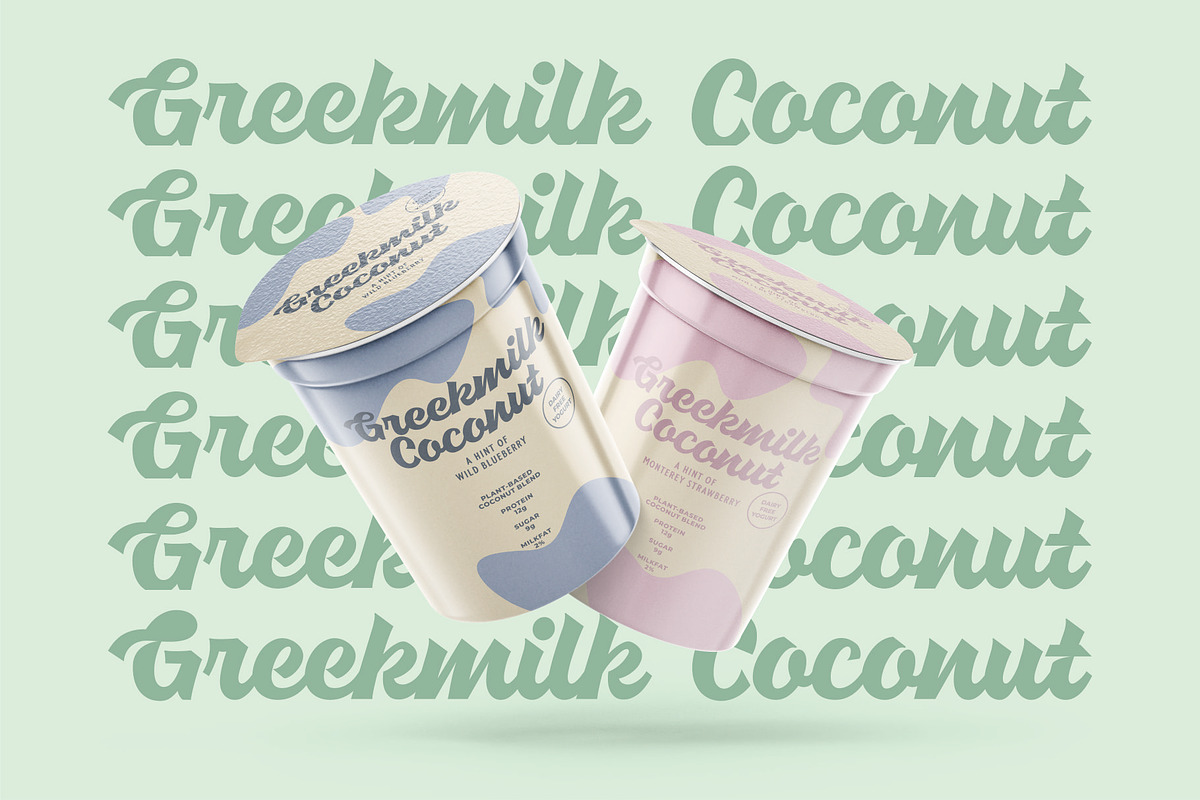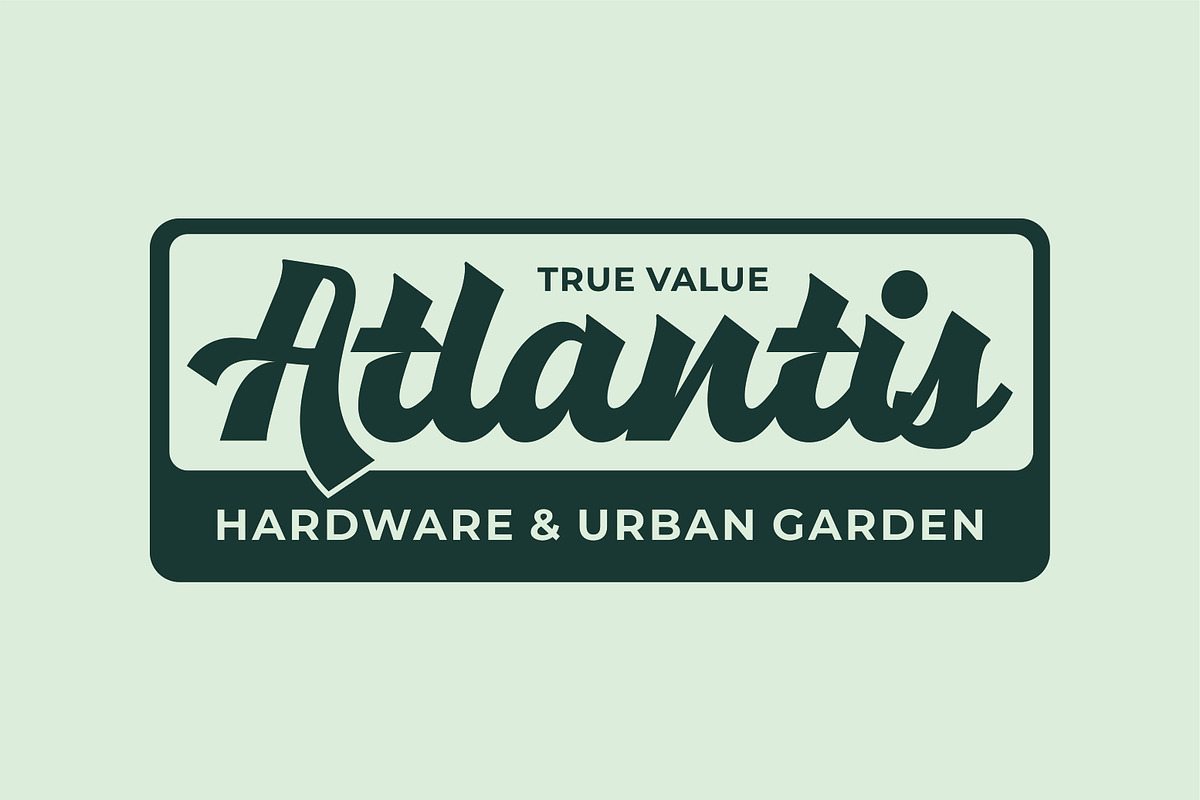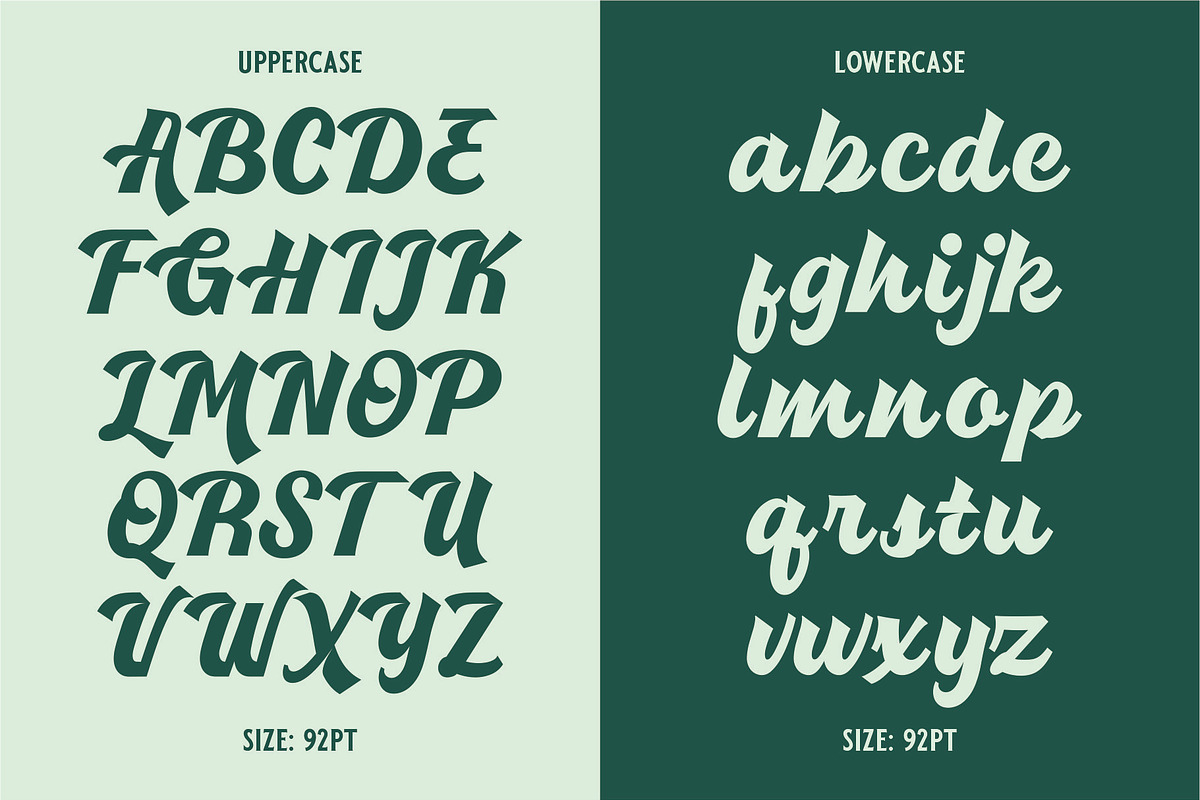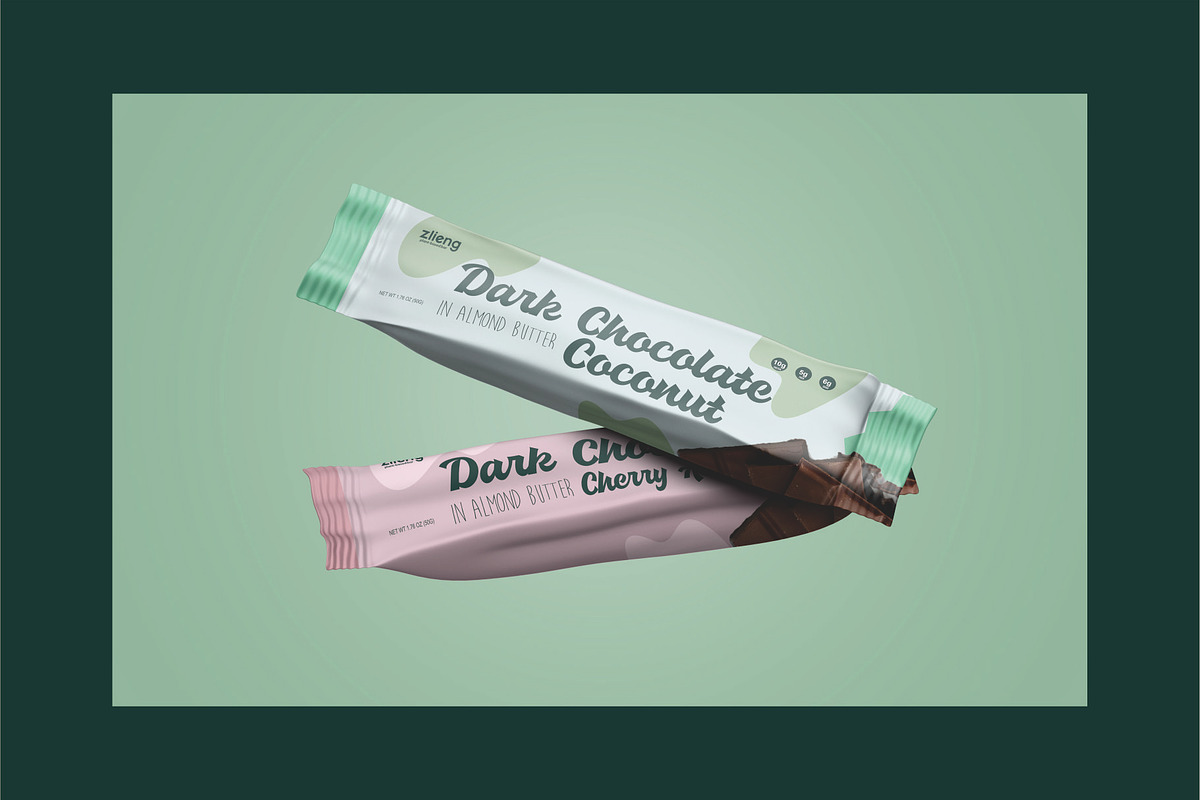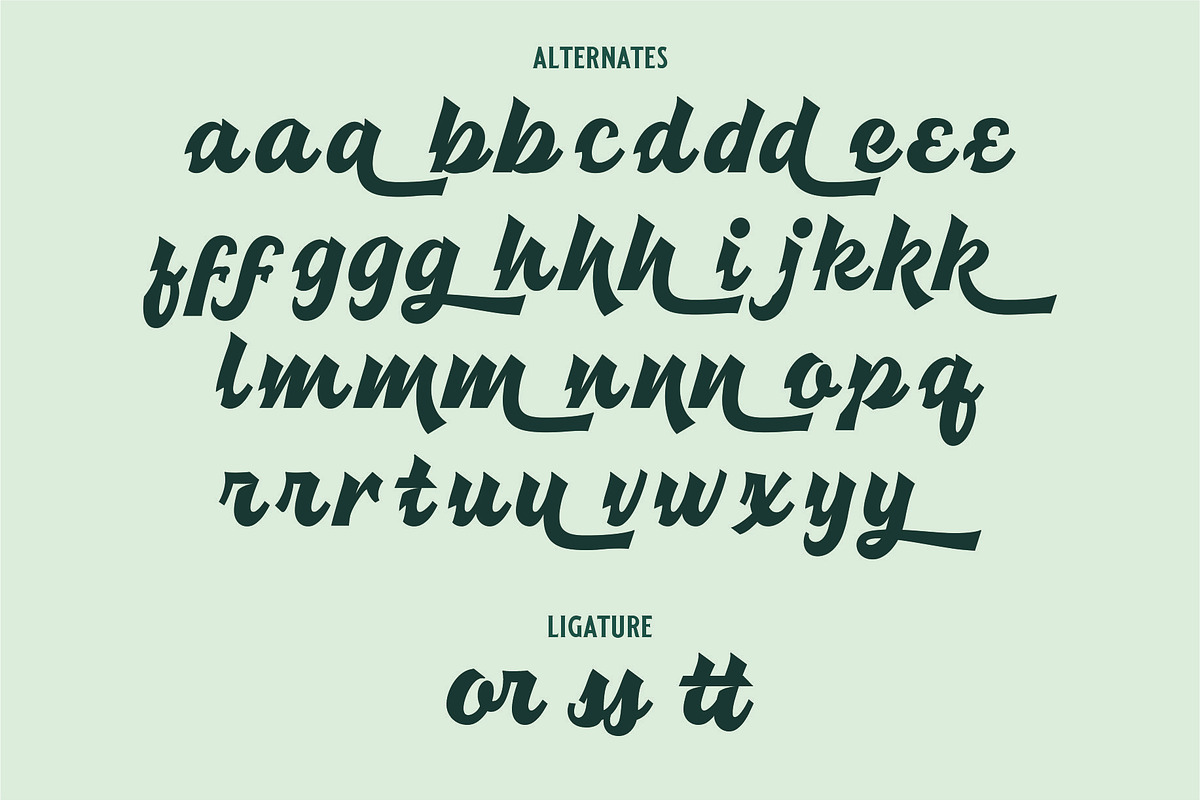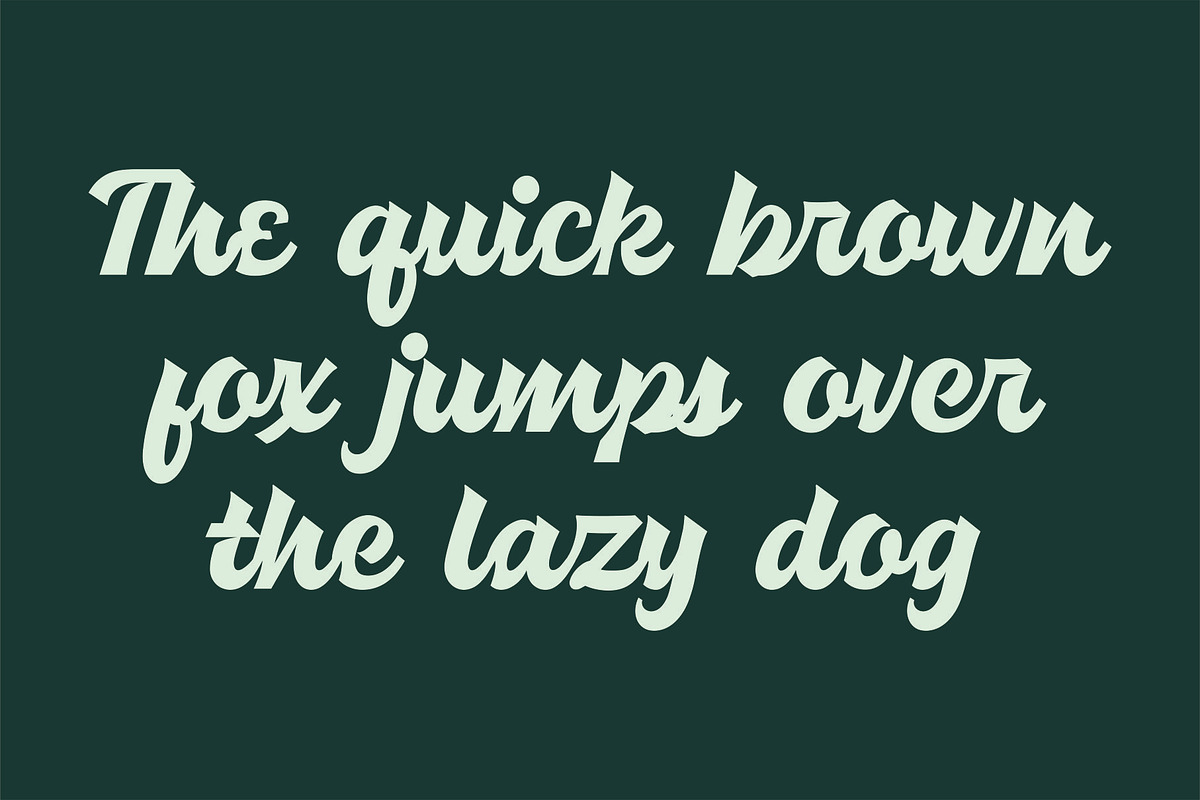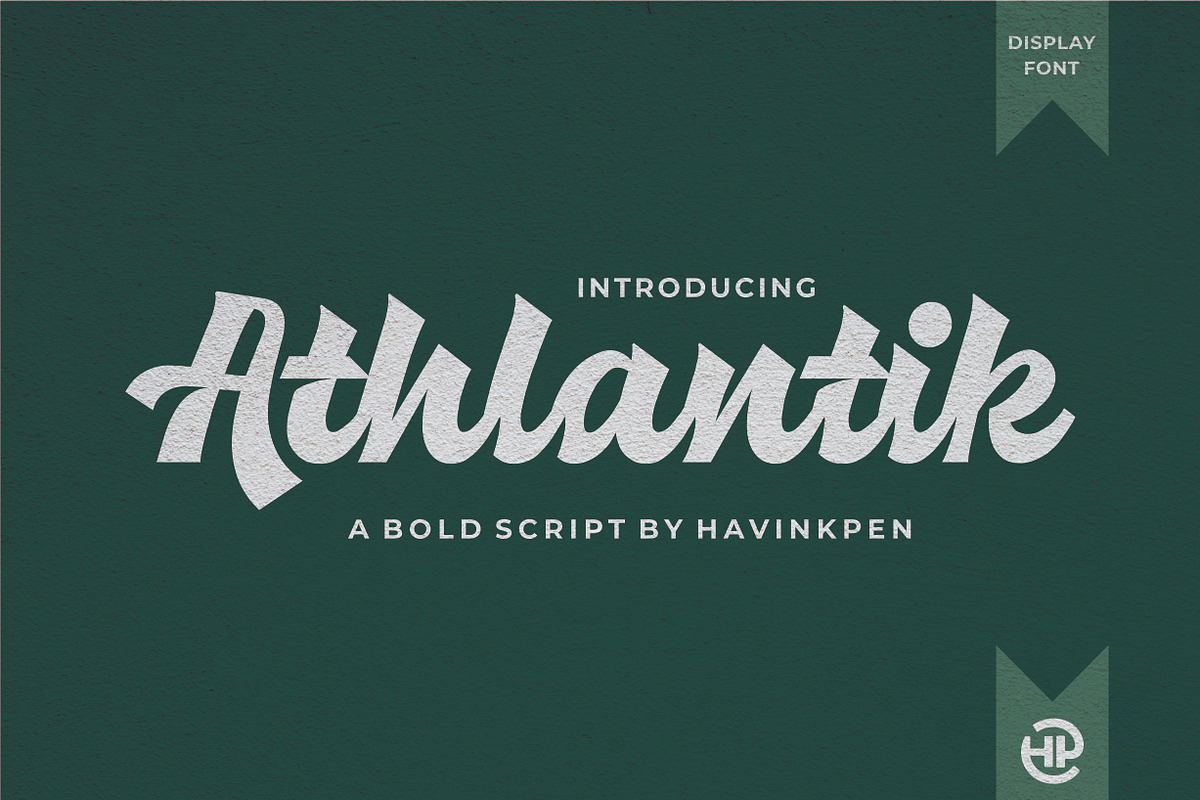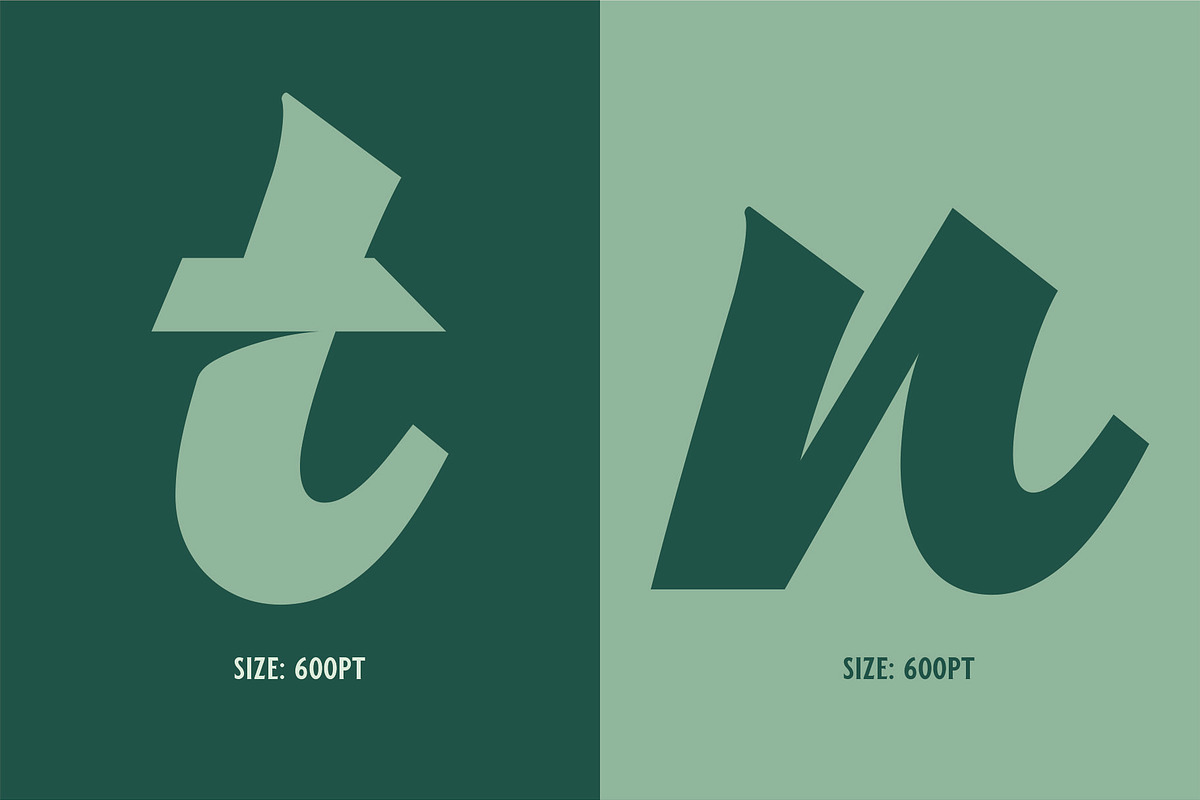
ATHLANTIK - Bold Script
Athlantik is a bold script font with a strong stroke style inspired by beautiful classic handwriting. made with care and fun without eliminate characteristics of our font.
Athlantik was intended for making a big impact with short phrases. perfect for your creative projects such as Logotype, Printed Quotes, Business Cards, Product Packaging, Headers, Letterhead, Apparel graphics, Web Design, Posters, Magazine, Book, Stickers, Labels etc.